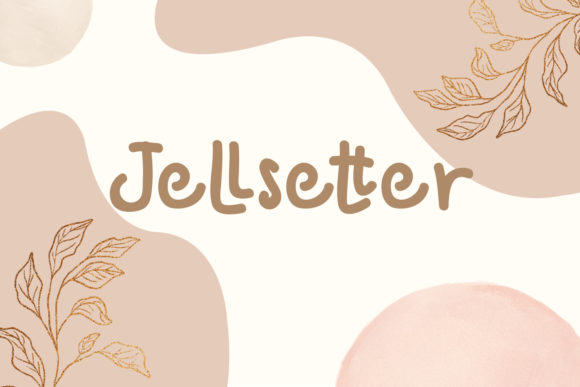
Introducing Jellsetter Font, the secret weapon for captivating designs that dance off the screen! Dive into a world of whimsical charm and playful elegance with this captivating script font, meticulously crafted by the talented hands at densudesign.
Jellsetter Font is not just a collection of letters; it's a gateway to unleashing your creativity. Its charming curves and playful strokes ignite a spark of delight, making it the perfect choice for designers seeking to inject a touch of whimsy into their work.
Picture this: your website headlines shimmering with Jellsetter's playful allure, inviting visitors to embark on an enchanting journey through your digital realm. Logos adorned with its swirling characters exude a touch of whimsy, leaving an unforgettable impression on your target audience.
But Jellsetter Font's magic extends far beyond the digital realm. Its versatility knows no bounds, making it a perfect fit for a myriad of creative endeavors. Unleash your imagination and adorn product packaging with its charming touch, creating an unboxing experience that sparks joy and anticipation.
Envision invitations penned with Jellsetter's graceful strokes, promising a celebration filled with laughter and cherished memories. T-shirts emblazoned with its playful characters become wearable works of art, spreading happiness wherever they go.
Jellsetter Font is not merely a tool; it's a catalyst for creativity. Its boundless charm empowers designers to craft designs that resonate with audiences, evoking emotions and leaving lasting impressions.
So, whether you're a seasoned designer or just starting your creative journey, embrace the power of Jellsetter Font. Let its playful spirit guide you towards designs that captivate hearts and ignite imaginations. Join the creative revolution and unlock the limitless possibilities that await!